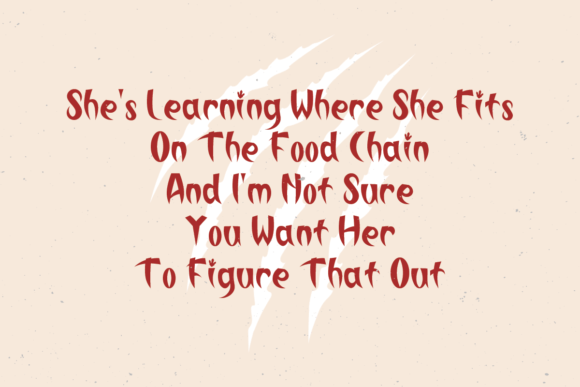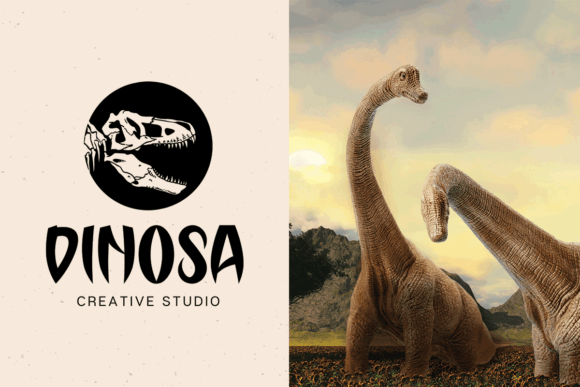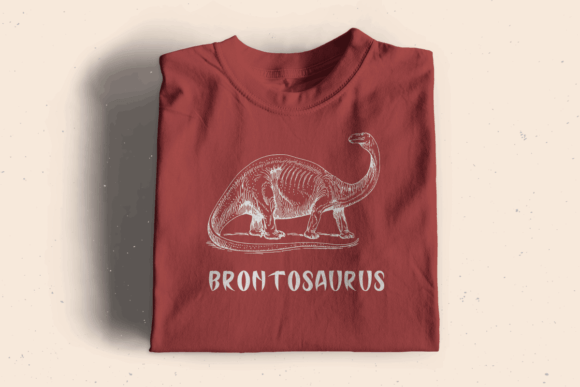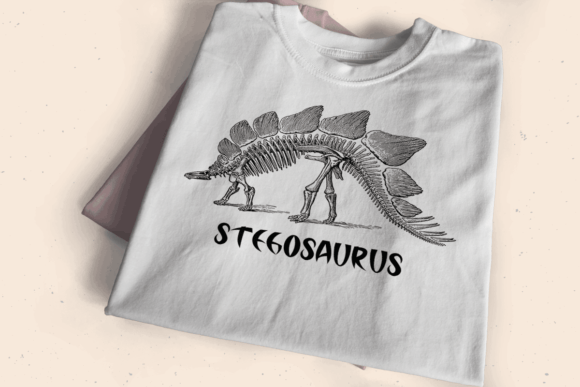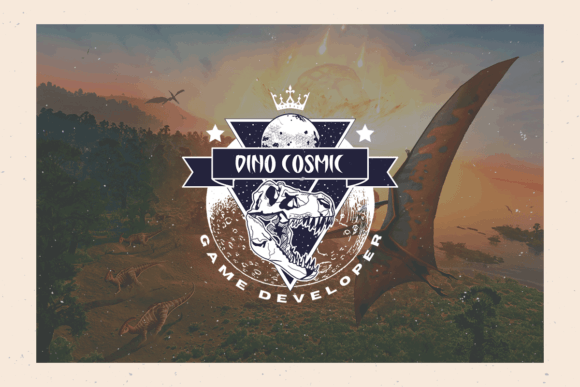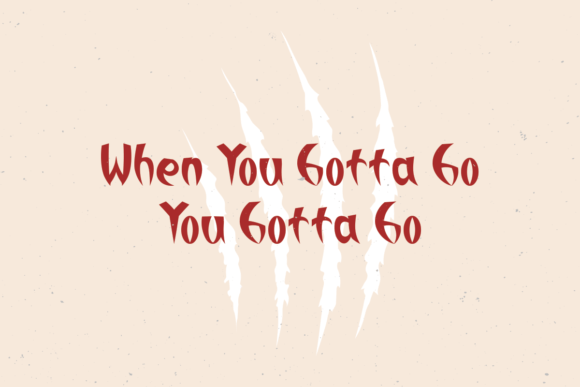
Introduction to Dinopark Font
Imagine you’re working on a creative project at midnight, the clock is ticking, and you’re struggling to find the perfect font to give it that eerie vibe. You’ve scoured the web, searched through design resources, and still, nothing seems to fit. That’s when you stumble upon the Dinopark Font – a game-changer for designers who crave that extra scare in their designs.
With its ancient animal theme and spooky undertones, the Dinopark Font is an absolute gem for designers who want to take their creative projects to the next level. This high-quality display font is available for free download, making it an excellent addition to any designer’s toolkit. Whether you’re working on a horror-themed poster, a mysterious logo, or a spooky social media graphic, the Dinopark Font is sure to give it that extra oomph.
Key Features of Dinopark Font
- High-quality design resource suitable for creative projects, offering a unique and stylish look.
- Features a transparent background, making it ideal for use on images or videos with complex backgrounds.
- Supports a range of languages, including Latin and Cyrillic alphabets.
- Includes 2 font styles: regular and bold, with a total of 256 glyphs.
- Designed at a high resolution of 1024 x 1024 pixels, ensuring crisp and clear display on various devices.
- Perfect for use in graphic design, web design, and digital art projects, adding a touch of sophistication and elegance.
Honest Review: Dinopark Font
I recently had the chance to try out the Dinopark Font, a design resource that caught my eye with its unique style. As a designer, I’m always on the lookout for high-quality fonts that can elevate my creative projects. And I’m happy to report that the Dinopark Font delivers.
What works well: ✨ The font is incredibly versatile and can be used for a wide range of design applications, from logos to brochures. The transparent background is also a major plus, making it easy to customize and integrate into any design. Additionally, the free download option is a big plus, especially for smaller design projects or personal use.
What doesn’t: ⚠️ One thing that stood out to me is the limited character set, which might be a concern for designers who need a wide range of characters for their projects. Additionally, the font can look a bit dated in certain contexts, which may not be ideal for more modern designs.
Overall, I’m impressed with the Dinopark Font and would definitely consider using it for future design projects. While it may have some limitations, its unique style and high-quality design make it a valuable addition to any designer’s toolkit.
- Unique style
Tips for Getting the Most Out of Dinopark Font
To get the most out of the Dinopark Font, use it with a transparent background to create a clean and modern look. Experiment with different font sizes and styles to add visual interest to your designs.
The Dinopark Font is ideal for a variety of creative projects, including logos, business cards, and brochures. Its high-quality design makes it perfect for professional and personal projects alike.
Rock Salt Font
Rock Salt Font is a distressed font that is perfect for creative projects that require a rugged and edgy look. This font features a high-quality design that is ideal for use on various backgrounds. When to use: Use Rock Salt Font for designs that require a vintage or retro feel. How it compares to Dinopark Font: Rock Salt Font has a more rugged and distressed look compared to Dinopark Font, making it ideal for designs that require a bold and edgy touch.
Gravitas Font